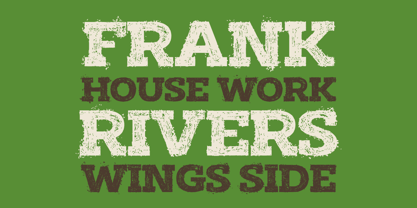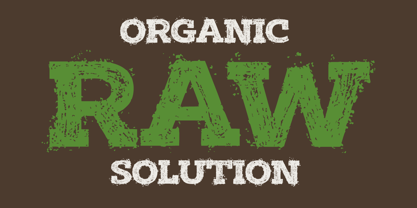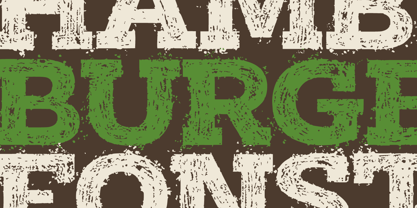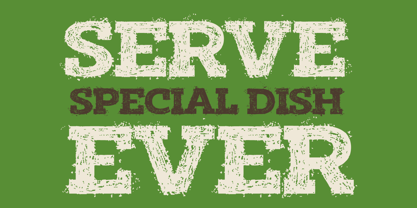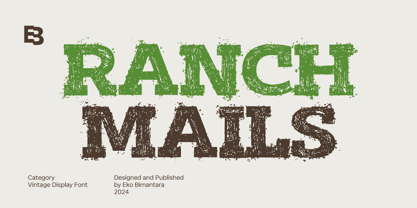
Ranch Mails
by Eko Bimantara
Ranch Mails is a bold, all-caps vintage display font characterized by its rough and raw aesthetic. Perfect for evoking a rustic, old-style charm, it fits themes related to food, product branding, and vintage design. Its rugged personality is ideal for large-size displays, titles, and headers, making it a great choice for brand identities, product packaging, and broad graphic design projects with a rustic or raw edge. Ranch Mails brings a timeless, rugged look to any creative layout or design.